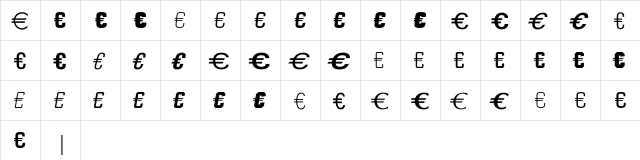
EuroSansEF Four
Design Context for EuroSansEF Typeface
EuroSansEF offers clean, dependable letterforms without strong stylistic allegiance, making it a practical choice for designers who need flexibility.